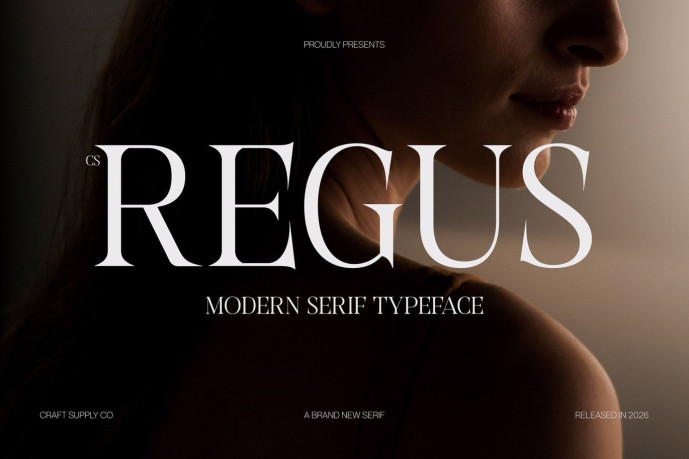
Regus – Modern Serif Font
CS Regus – Modern Serif Font: Where Contemporary Elegance Meets Timeless Sophistication Slim Proportions with Graceful Long Serifs This is a modern serif font featuring a slim, clean, and contemporary structure enhanced by graceful long serifs. Its refined proportions and delicate details create an elegant, stylish, and highly polished. The slender letterforms contribute to a sense of lightness and luxury, making the font ideal for premium visual communication.
Clean Contemporary Design with Timeless Appeal This font achieves a perfect balance between tradition and innovation. Its clean construction ensures clarity and versatility, while the elongated serifs add character and distinction. The result is a typeface that feels contemporary yet enduring, suitable for projects that demand both professionalism and beauty.
Sophisticated Presence with Memorable Style Every letterform in this font is crafted to convey elegance and confidence. Its refined structure creates a memorable visual identity that stands out without overwhelming the design. Whether used in large display settings or carefully curated branding materials, the font brings a sense of prestige and artistic sophistication.
Perfect for Luxury Packaging and Editorial Design Ideal for luxury branding, editorial layouts, fashion campaigns, premium packaging, posters, magazine covers, invitations, beauty products, and creative projects that aim to appear sophisticated and memorable. Its elegant serif forms make it perfect for logos, headlines, and display typography that seek to communicate refinement, exclusivity, and contemporary style.